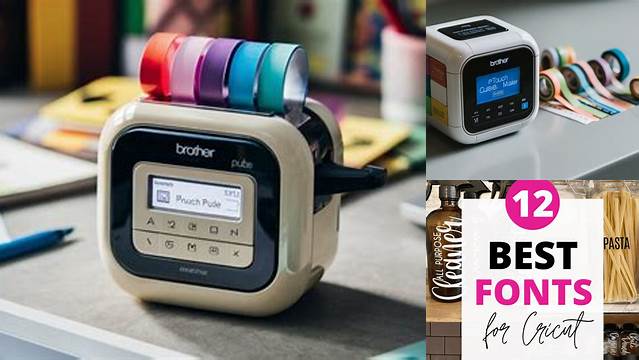
Cute Font Label Maker: Best Picks & Creative Ideas
Hey guys! Are you looking to spice up your labeling game? Want to ditch those boring, standard labels and add a touch of personality and fun? Then you've come to the right place! We're diving deep into the world of the best label maker with cute fonts. Forget drab organization – we're talking about creating labels that are both functional and absolutely adorable. This guide will walk you through everything you need to know, from choosing the right label maker to exploring the cutest fonts available.
1. Why Choose a Label Maker with Cute Fonts?
Let's face it: labels don't have to be boring. A label maker with cute fonts can transform your organizational projects into creative endeavors. Think about it – instead of plain, generic labels on your spice jars, you could have labels with whimsical fonts that reflect your personality. For kids, labels with fun fonts can make learning and organization more engaging. In a small business setting, unique and charming labels can help your products stand out. A label maker with cute fonts adds a personal touch to everything, turning mundane tasks into opportunities for creative expression. The ability to customize labels beyond basic text is a game-changer. You can use these label makers for crafting, scrapbooking, party decorations, and so much more. The possibilities are truly endless when you combine functionality with adorable aesthetics.
Consider the emotional impact of using cute fonts. A handwritten-style font can evoke a sense of warmth and care, making your labels feel more personal. A playful, cartoonish font can bring a smile to someone's face. The right font can completely change the tone and perception of your labels. And let's not forget the sheer enjoyment of using a label maker with cute fonts! It's a creative outlet that allows you to express your individuality and add a touch of whimsy to your everyday life. So, ditch the dull labels and embrace the world of cute fonts – you'll be amazed at the difference it makes!
2. Top Label Maker Brands Offering Cute Fonts
When searching for the best label maker with cute fonts, several brands stand out from the crowd. Brother, DYMO, and Phomemo are all reputable names in the label-making industry, each offering models with varying font options and design capabilities. Brother label makers, known for their durability and versatility, often include a range of built-in fonts, including some playful and decorative options. DYMO label makers are another popular choice, offering user-friendly interfaces and a selection of fonts suitable for both professional and personal use. Phomemo label makers, particularly their portable models, are gaining traction for their affordability and compatibility with mobile apps, which often provide access to a wider variety of cute and trendy fonts.
Beyond these major brands, smaller companies are also entering the market with innovative label makers that cater specifically to users who want cute fonts. These label makers often come with unique features, such as Bluetooth connectivity, smartphone integration, and access to online font libraries. When comparing brands, consider factors like print quality, ease of use, label size options, and the availability of different font styles. Some label makers may also offer the ability to upload your own custom fonts, giving you even greater creative control. Don't hesitate to read reviews and compare specifications to find the brand and model that best suits your needs and preferences. Remember, the best label maker with cute fonts is the one that provides the features, font options, and overall user experience that will help you bring your labeling visions to life!
3. Key Features to Look For in a Cute Font Label Maker
When selecting a label maker with cute fonts, several key features should be considered to ensure it meets your specific needs. Font Variety and Customization: The most important feature is, of course, the variety of fonts available. Look for a label maker that offers a range of cute, stylish, and unique fonts to suit different projects. The ability to adjust font size, style (bold, italic, underline), and spacing is also crucial for creating visually appealing labels. Ease of Use: A user-friendly interface is essential for a smooth labeling experience. The label maker should be easy to navigate, with clear menus and intuitive controls. Consider models with LCD screens that display a preview of the label before printing, allowing you to make adjustments and avoid errors.
Connectivity and Compatibility: Some label makers offer Bluetooth connectivity, allowing you to connect to your smartphone or tablet and design labels using a mobile app. This opens up a world of possibilities, as mobile apps often provide access to a wider variety of fonts, graphics, and templates. Label Size and Material Options: The label maker should support a range of label sizes and materials to accommodate different applications. Consider whether you need weatherproof labels, adhesive labels, or iron-on labels for clothing. Portability and Power Source: If you plan to use the label maker in different locations, a portable model with battery power is a good choice. Look for models that are lightweight and easy to carry around. Additional Features: Some label makers offer additional features such as automatic cutting, barcode printing, and the ability to save custom label designs. These features can enhance your labeling efficiency and creativity. By considering these key features, you can choose a label maker with cute fonts that will inspire your creativity and make your labeling tasks a breeze.
4. Exploring Different Types of Cute Fonts for Labels
The world of cute fonts is vast and diverse, offering endless possibilities for creating unique and eye-catching labels. Handwritten Fonts: These fonts mimic the look of natural handwriting, adding a personal and charming touch to your labels. They are perfect for labeling gifts, handmade items, or personal belongings. Script Fonts: Script fonts feature elegant and flowing letterforms, adding a touch of sophistication and style to your labels. They are ideal for labeling wedding favors, party decorations, or beauty products. Display Fonts: Display fonts are designed to grab attention and make a statement. They often feature unique and quirky letterforms, making them perfect for labeling kids' items, crafts, or promotional materials.
Sans-Serif Fonts: Sans-serif fonts are clean and modern, offering a versatile option for a wide range of labeling applications. They are particularly well-suited for labeling office supplies, storage containers, or kitchen items. Serif Fonts: Serif fonts feature small decorative strokes at the ends of the letterforms, adding a touch of tradition and formality to your labels. They are often used for labeling books, documents, or wine bottles. Novelty Fonts: Novelty fonts are designed to be fun and playful, often featuring themed letterforms that reflect a specific interest or occasion. They are perfect for labeling party favors, holiday decorations, or children's toys. By exploring the different types of cute fonts available, you can find the perfect style to match your project and create labels that are both functional and visually appealing. Experiment with different font combinations and styles to discover your own unique labeling aesthetic.
5. Step-by-Step Guide to Creating Cute Labels
Creating cute labels with your label maker is a fun and easy process. Here's a step-by-step guide to help you get started: 1. Choose Your Font: Select a font that matches the style and purpose of your label. Experiment with different fonts to find the perfect fit. 2. Enter Your Text: Type in the text you want to appear on your label. Be mindful of the label size and length of the text. 3. Adjust Font Size and Style: Adjust the font size, style (bold, italic, underline), and spacing to create a visually appealing design. 4. Add Graphics or Symbols: Some label makers allow you to add graphics or symbols to your labels. Choose relevant icons or images to enhance the visual appeal. 5. Preview Your Label: Use the preview function to see how your label will look before printing. Make any necessary adjustments to ensure the design is perfect. 6. Print Your Label: Once you're satisfied with the design, print your label. 7. Apply Your Label: Carefully peel off the backing and apply your label to the desired surface. By following these steps, you can create cute and personalized labels that will add a touch of style to your organization and crafting projects. Don't be afraid to experiment with different fonts, graphics, and layouts to discover your own unique labeling style.
10. The Future of Label Makers: What to Expect
The future of label makers with cute fonts is bright, with ongoing advancements in technology and design. Increased Connectivity: Expect to see more label makers with seamless connectivity to smartphones, tablets, and cloud services. This will allow for easier access to a wider variety of fonts, graphics, and templates. Improved Print Quality: Advances in printing technology will result in sharper, more vibrant labels with enhanced durability. More Sustainable Options: Manufacturers are increasingly focusing on sustainability, with the development of eco-friendly label materials and energy-efficient label makers. AI-Powered Design: Artificial intelligence may play a role in the future of label design, with AI-powered tools that can automatically generate label designs based on user preferences. Enhanced Customization: Expect to see more label makers that offer advanced customization options, such as the ability to upload custom fonts, create intricate designs, and print on a wider range of materials. As technology continues to evolve, label makers with cute fonts will become even more versatile, user-friendly, and essential for both personal and professional applications. Get ready to embrace the future of labeling!